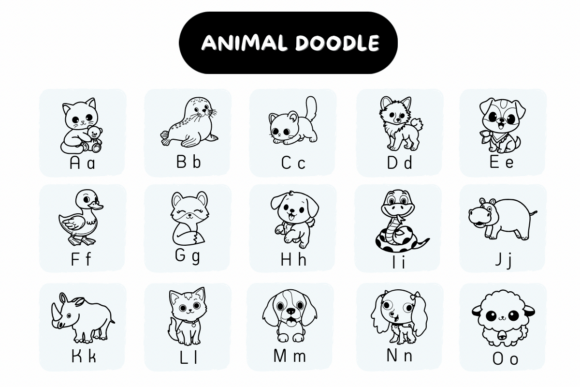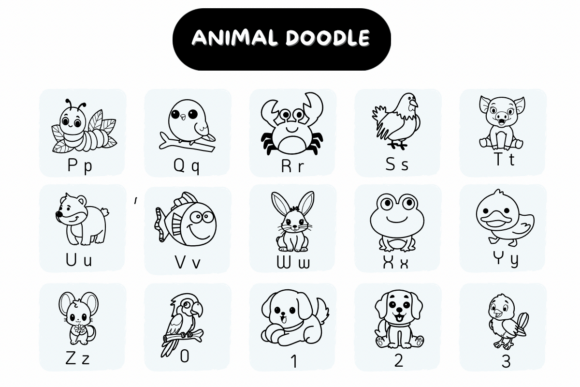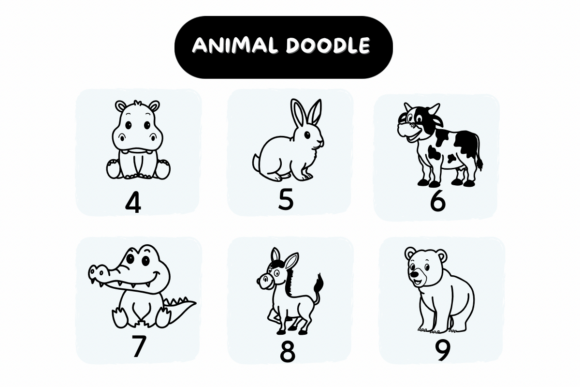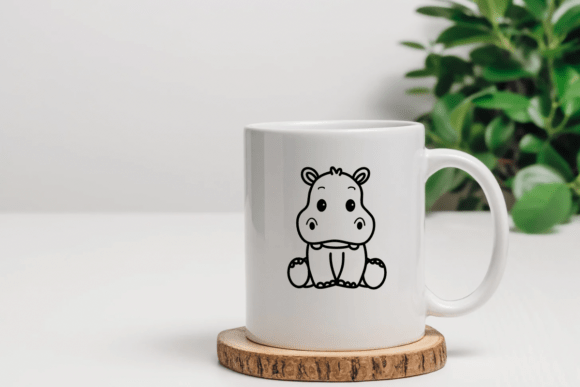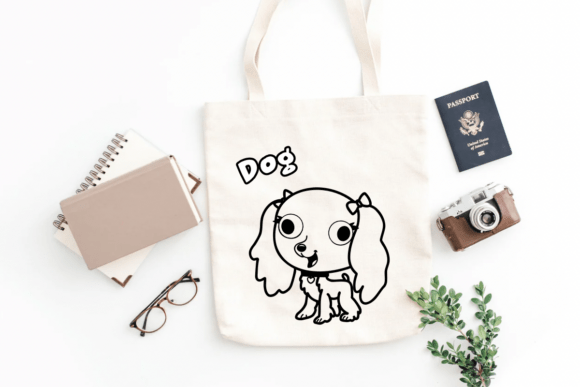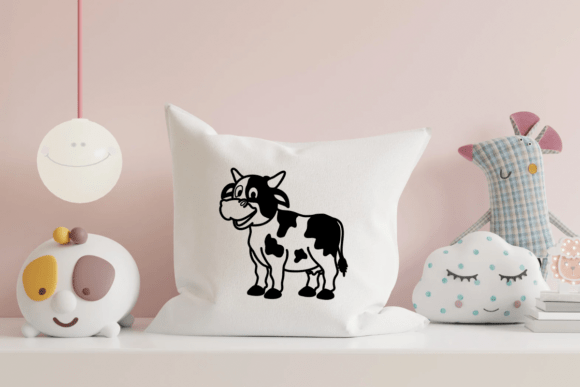
Unleash Your Creativity with Animal Font: A Sketched Dingbats Font
Are you a designer, crafter, or DIY enthusiast looking for a unique and creative way to add a personal touch to your projects? Look no further than Animal Font, a charming dingbats font with a sketched style that’s perfect for a wide range of creative applications. In this article, we’ll explore the features and benefits of Animal Font, and show you how it can elevate your wedding invitations, DIY projects, crafts, decorations, logos, and more.
What is Animal Font?
Animal Font is a dingbats font that features a delightful sketched style, complete with adorable animal illustrations. This font is perfect for anyone who loves animals and wants to add a touch of whimsy to their designs. With Animal Font, you can create custom illustrations, logos, and graphics that are sure to delight your audience.
Key Features of Animal Font
- Sketched Style: Animal Font features a charming sketched style that’s perfect for creating hand-drawn illustrations and graphics.
- Adorable Animal Illustrations: This font includes a wide range of adorable animal illustrations, from cats and dogs to birds and more.
- Versatile: Animal Font is perfect for a wide range of creative projects, including wedding invitations, DIY crafts, decorations, logos, and more.
Creative Ways to Use Animal Font
Animal Font is a versatile font that can be used in a wide range of creative projects. Here are some ideas to get you started:
- Wedding Invitations: Add a personal touch to your wedding invitations with custom illustrations created using Animal Font.
- DIY Crafts: Use Animal Font to create custom graphics and illustrations for your DIY crafts, such as paper crafts, scrapbooking, and more.
- Decorations: Create custom decorations, such as wall art, garlands, and more, using Animal Font.
- Logos: Use Animal Font to create custom logos for your business or brand.
- Social Media Graphics: Create custom social media graphics, such as Facebook posts, Instagram graphics, and more, using Animal Font.
Benefits of Using Animal Font
There are many benefits to using Animal Font in your creative projects. Here are a few:
- Unique and Creative: Animal Font offers a unique and creative way to add a personal touch to your designs.
- Time-Saving: This font saves you time and effort by providing pre-made illustrations and graphics.
- Customizable: You can customize Animal Font to fit your needs, making it perfect for a wide range of creative projects.
Tips and Tricks for Using Animal Font
Here are some tips and tricks for getting the most out of Animal Font:
- Experiment with Different Colors: Try out different colors and color combinations to add depth and interest to your designs.
- Mix and Match Illustrations: Combine different illustrations and graphics to create unique and creative designs.
- Use it in Combination with Other Fonts: Pair Animal Font with other fonts to create visually appealing and creative designs.
Animal Font is a charming dingbats font with a sketched style that’s perfect for designers, crafters, and DIY enthusiasts. With its adorable animal illustrations and versatile design, this font is sure to add a personal touch to your creative projects. Whether you’re creating wedding invitations, DIY crafts, decorations, logos, or social media graphics, Animal Font is the perfect choice. So why wait? Download Animal Font today and start unleashing your creativity!